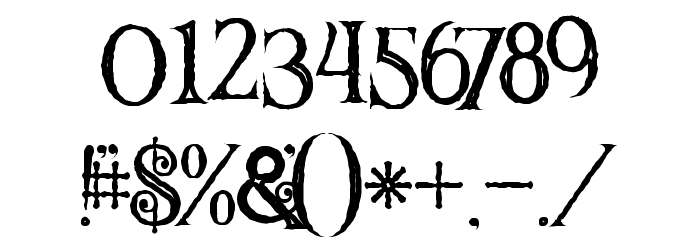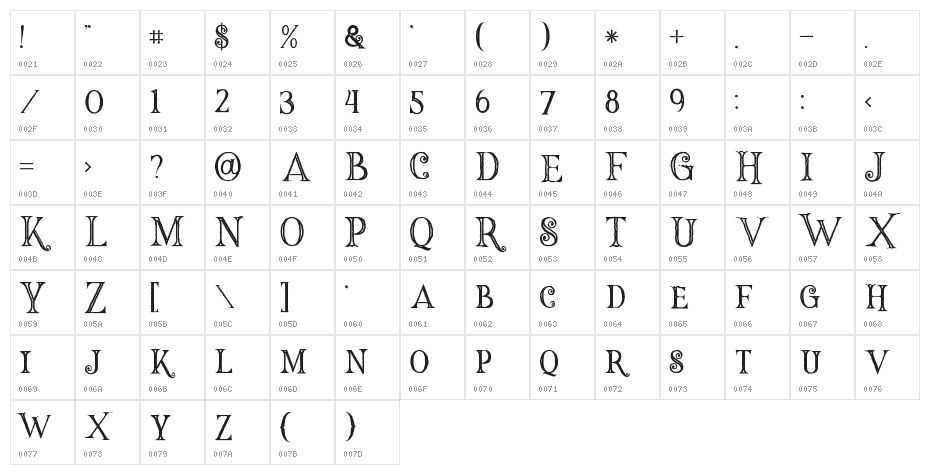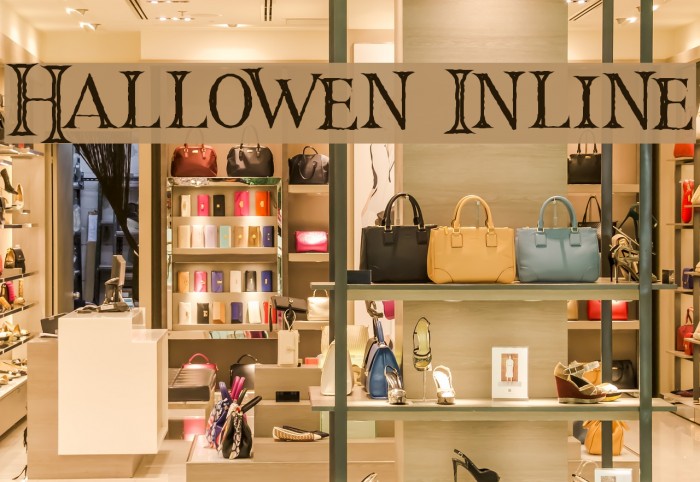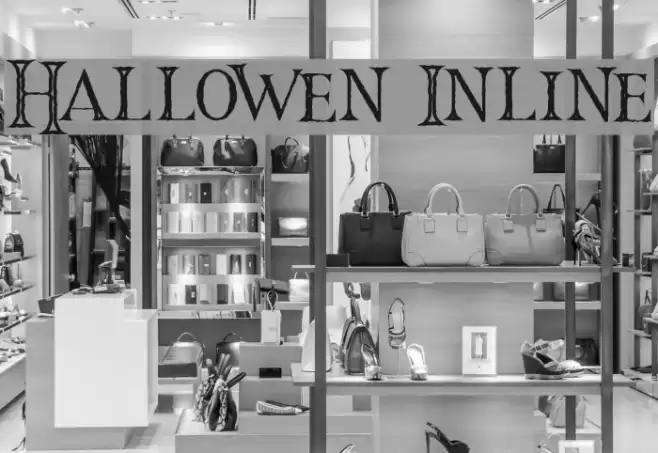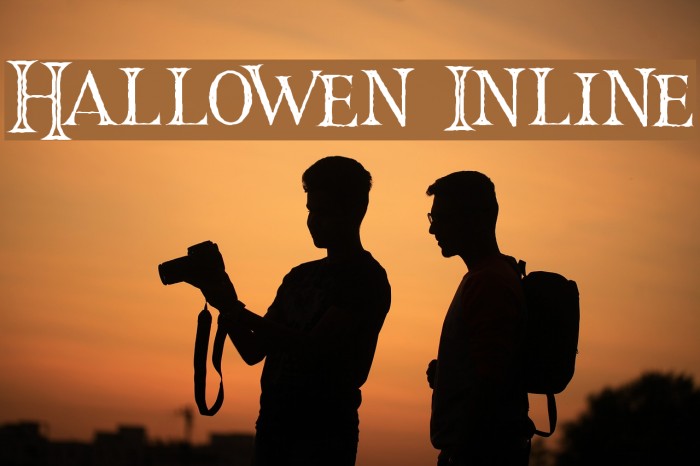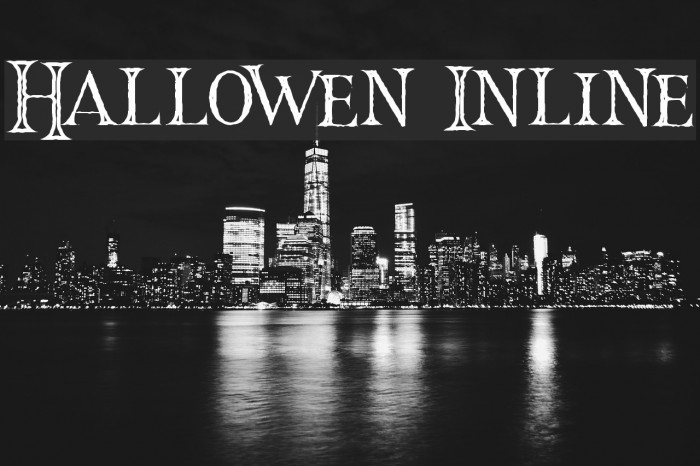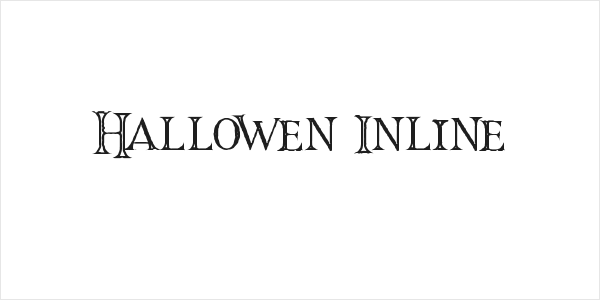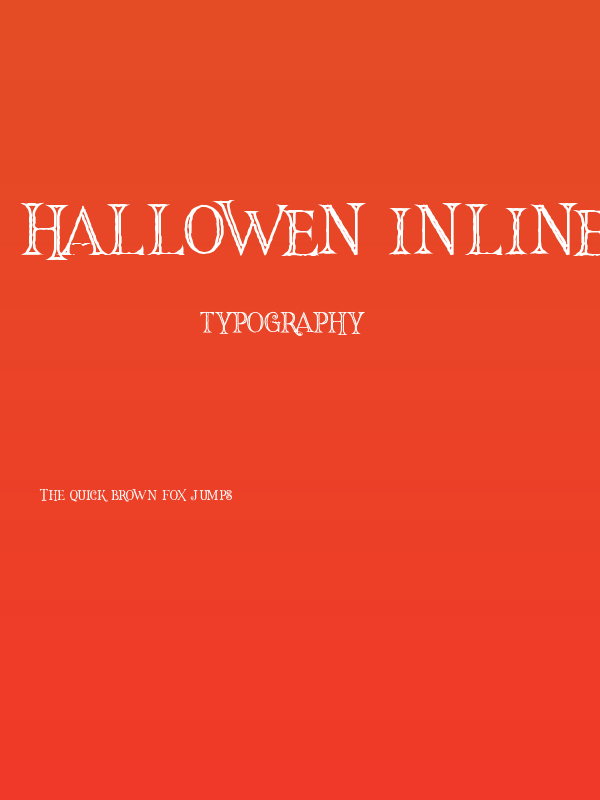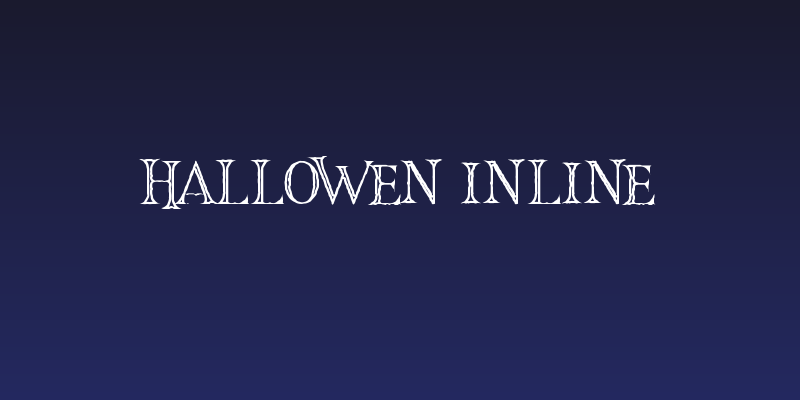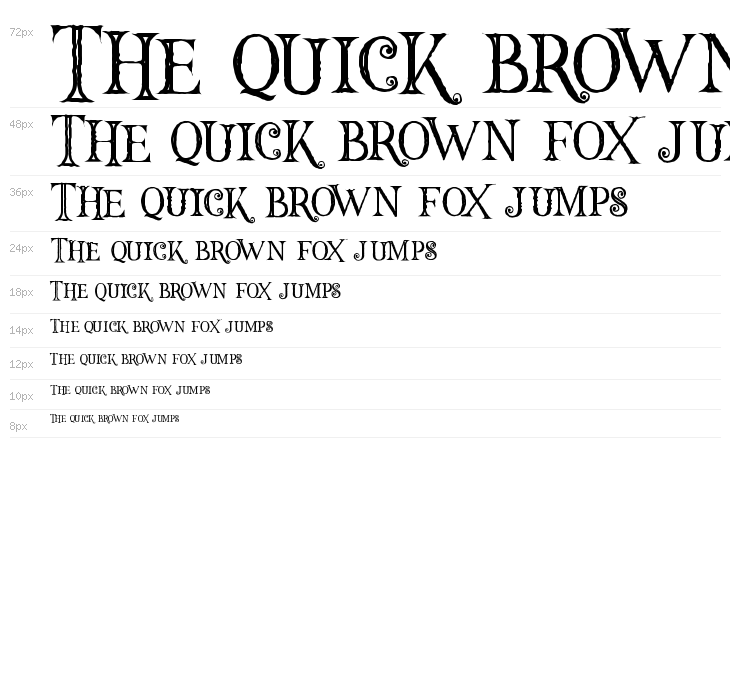
Hallowen Inline Font
Hallowen Inline Description
This font features a decorative and whimsical style, characterized by its intricate inline details and playful swirls. The uppercase and lowercase letters exhibit a unique flair, with each character having a distinct personality. The numbers and special characters maintain this theme, offering a cohesive and artistic appearance. The overall design is reminiscent of a festive or spooky theme, making it ideal for creative projects that require a touch of elegance and mystery.
| Proposed Projects | Ideal for Halloween-themed designs, party invitations, posters, and creative branding projects. |